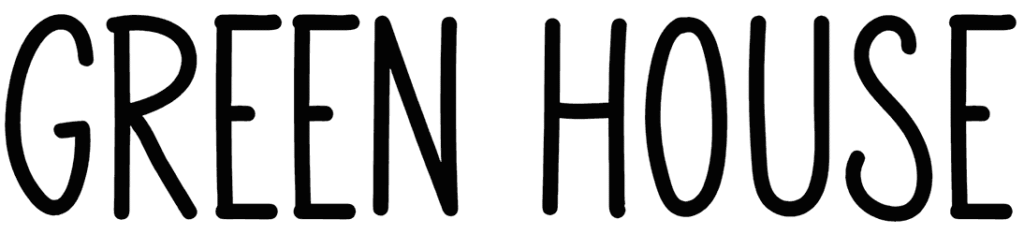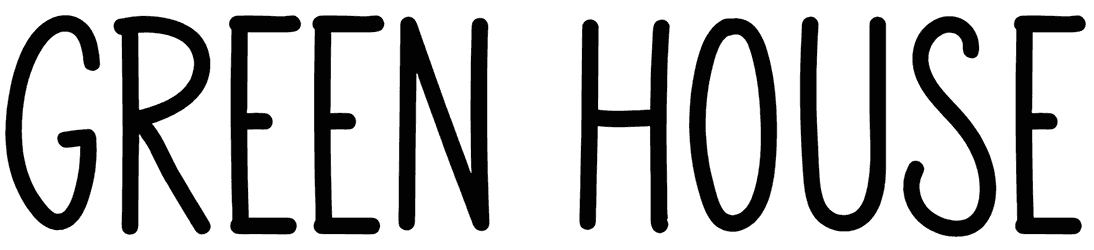
Green House Font
Here we come again to go for an approachable script font such as Green House that comes with elongated and rounded characters. This all-caps handwritten font can reinforce a vibe of drama, discipline, vitality, and personalization in your artwork including brand descriptions, social media posts, web page templates, or movie brochures.